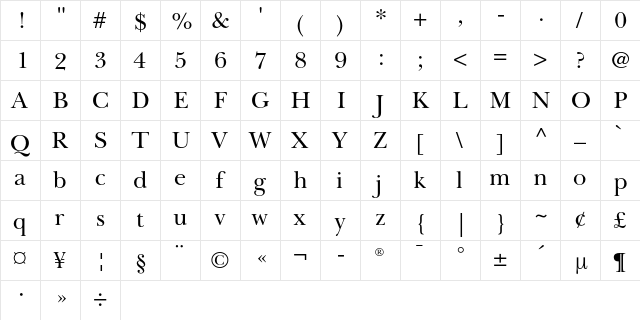
Baskerville Cyrillic Upright Font Preview
Baskerville Cyrillic Upright
Baskerville Cyrillic Upright Font Details
Design Context for Baskerville Typeface
Baskerville is a composed and adaptable typeface that performs quietly and consistently across a wide range of design contexts.